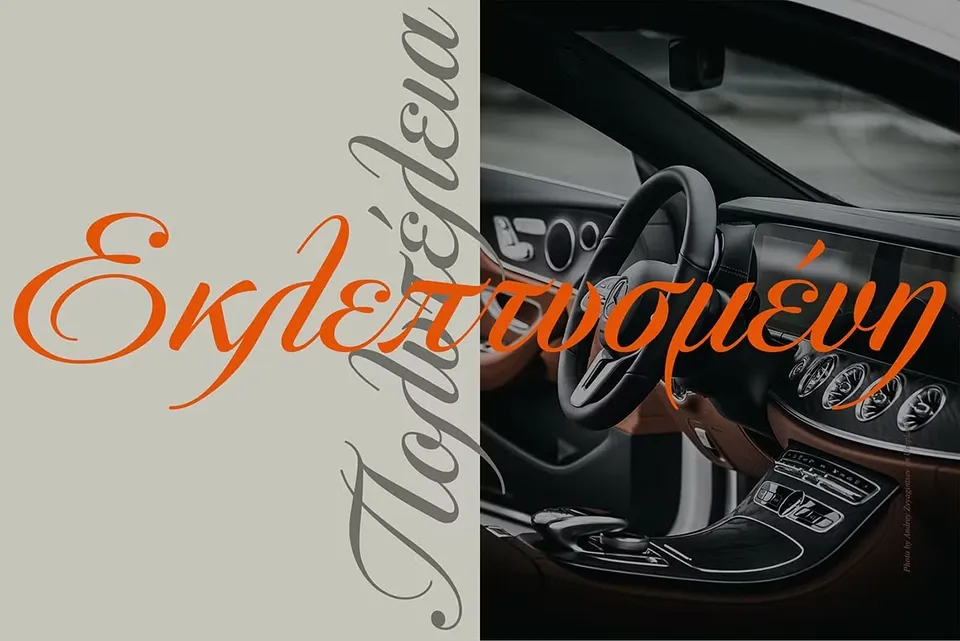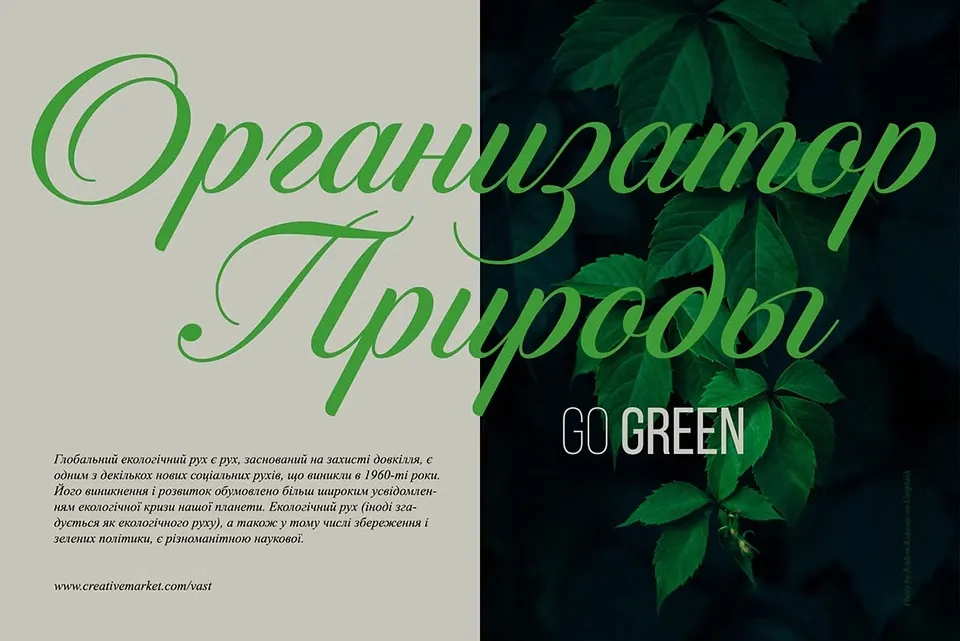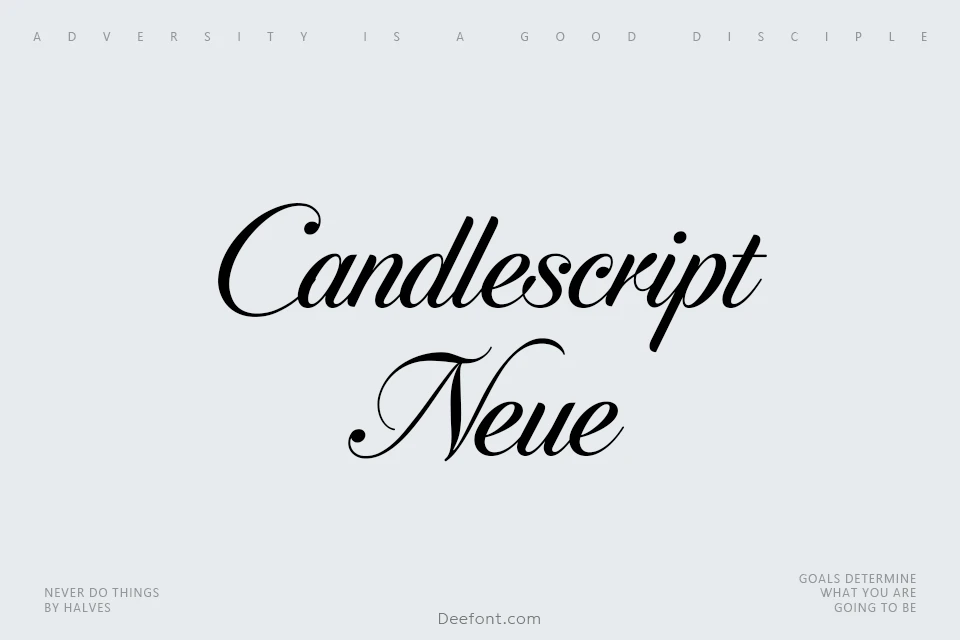
Candlescript Neue Font
Candlescript Neue Font is a modern script font redesigned with all-new glyphs by M Fairuzulhaq (Semarang, Indonesia), also known as Vast. Inspired by classic copperplate calligraphy, it merges traditional elegance with a trendy, feminine style and a smooth baseline. With over 1500 standard glyphs, including uppercaps, smallcaps, numerals, punctuation, currency, symbols, and diacritical marks, it supports Cyrillic, Greek, and Latin scripts for over 115 languages. Candlescript Neue is perfect for monitor display or print projects of any size, offering high-quality detail and versatility for creative typography.